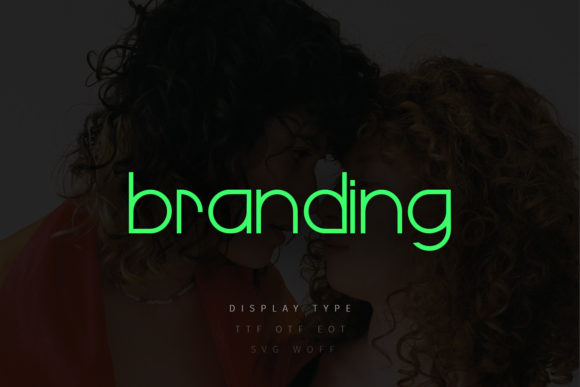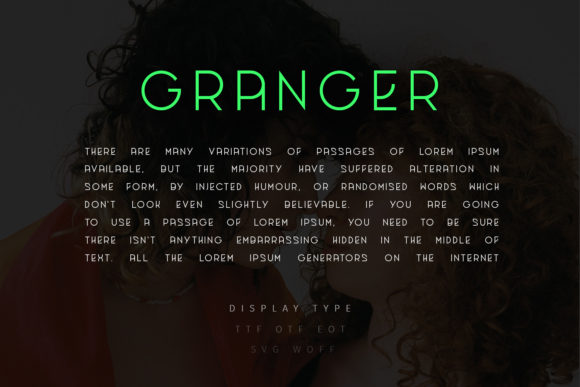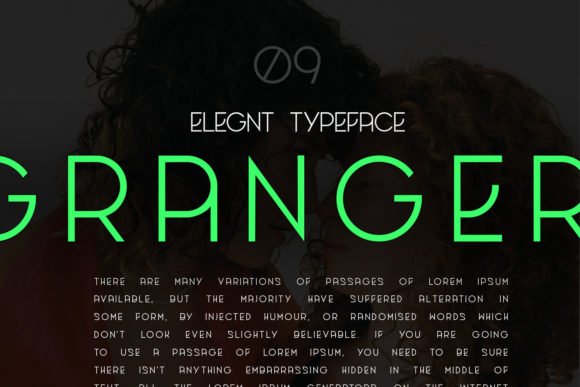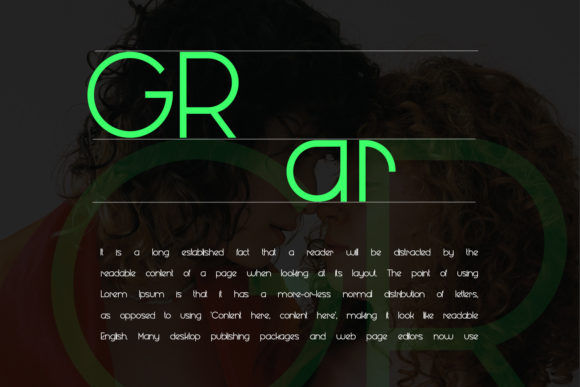
Introducing Granger Font: Elevate Your Designs with Minimal and Thin Lettering
Are you on the hunt for a font that can add a touch of elegance and sophistication to your designs? Look no further than Granger Font, a minimal and thin lettered display font that’s perfect for making your creative projects stand out. In this article, we’ll dive into the world of Granger Font, exploring its features, benefits, and uses, as well as provide tips on how to incorporate it into your designs.
What is Granger Font?
Granger Font is a modern, minimalist display font that’s designed to make a statement. Its thin lettering and clean lines give it a sleek and sophisticated look that’s perfect for a wide range of projects, from branding and advertising to packaging and digital media. Whether you’re a designer, craftor, or DIY enthusiast, Granger Font is an excellent addition to your font library.
Key Features of Granger Font
- Minimalist design: Granger Font boasts a clean and minimalist design that’s perfect for creating modern and sophisticated designs.
- Thin lettering: The font’s thin lettering gives it a light and airy feel that’s ideal for adding a touch of elegance to your designs.
- Versatile: Granger Font can be used for a wide range of projects, from headings and titles to logos and branding.
- Easily readable: Despite its thin lettering, Granger Font is surprisingly easy to read, making it perfect for use in body text as well as headings.
Benefits of Using Granger Font
So why should you choose Granger Font for your designs? Here are just a few benefits of using this versatile font:
- Adds elegance and sophistication: Granger Font’s minimalist design and thin lettering give it a sleek and sophisticated look that’s perfect for adding a touch of elegance to your designs.
- Improves readability: Despite its thin lettering, Granger Font is easy to read, making it perfect for use in body text as well as headings.
- Increases versatility: Granger Font can be used for a wide range of projects, from branding and advertising to packaging and digital media.
- Enhances creativity: With Granger Font, you can add a touch of personality to your designs and make them stand out from the crowd.
How to Use Granger Font in Your Designs
Now that we’ve covered the features and benefits of Granger Font, let’s talk about how to use it in your designs. Here are a few tips to get you started:
- Use it as a display font: Granger Font is perfect for use as a display font, making it ideal for headings, titles, and logos.
- Pair it with bold fonts: For a striking contrast, pair Granger Font with a bold font to create visual interest and add depth to your designs.
- Experiment with colors: Granger Font looks great in a range of colors, from bold and bright to soft and pastel.
- Don’t be afraid to get creative: With Granger Font, you can add a touch of personality to your designs and make them stand out from the crowd.
In conclusion, Granger Font is a versatile and elegant font that’s perfect for designers, craftors, and DIY enthusiasts. Its minimalist design, thin lettering, and ease of readability make it an excellent addition to any font library. Whether you’re looking to add a touch of sophistication to your designs or simply want to try something new, Granger Font is definitely worth checking out.